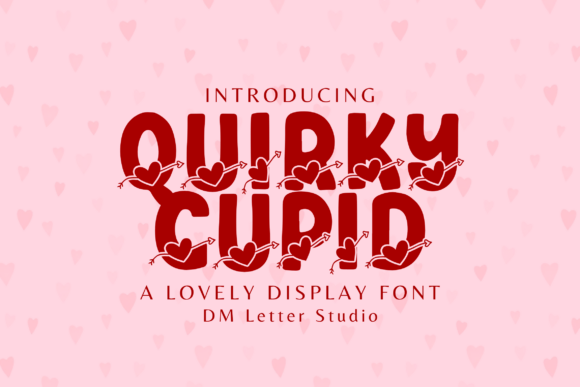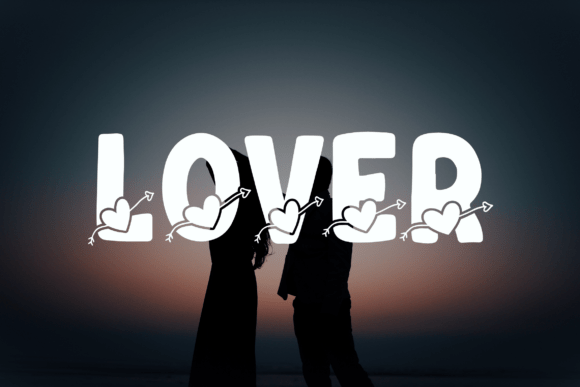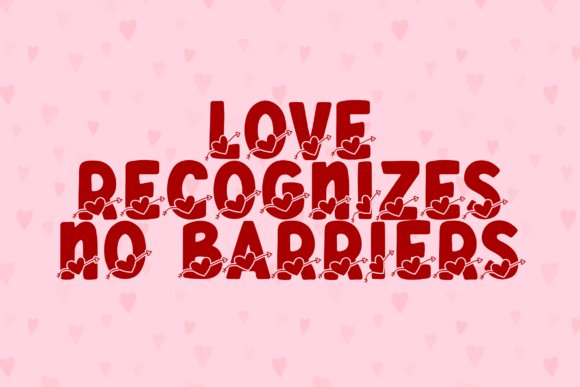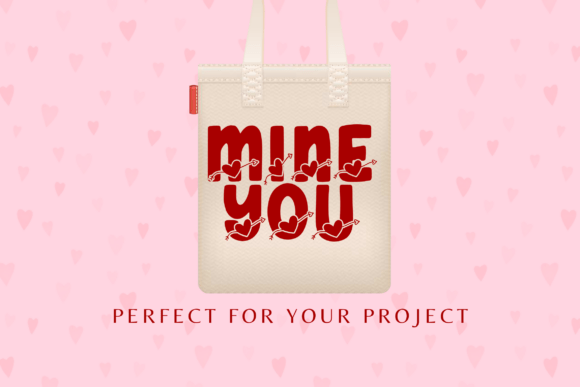
Quirky Cupid Font: A Cute Display Font for Valentine’s Day & DIY Crafts
About the Quirky Cupid Font
Make a bold statement with Quirky Cupid Font, a powerful and memorable font. Quirky Cupid is a cheerful and whimsical font designed to celebrate love in the most charming way. With its heart-infused strokes and quirky, hand-drawn style, this font is perfect for Valentine’s Day cards, wedding invitations, love notes, romantic crafts, and playful branding. It adds a touch of fun and affection to any heartfelt project.
Quirky Cupid’s playful energy makes it ideal for headlines, short text blocks on packaging, and social media graphics. It works exceptionally well for branding projects targeting a young, fun-loving demographic, particularly those related to confectionery, fashion accessories, or children’s products. However, its whimsical nature makes it unsuitable for large amounts of body text or UI elements where readability is paramount.
For optimal visual harmony, pair Quirky Cupid with a clean sans-serif like Lato for a modern contrast, or a classic serif font like Playfair Display for a touch of elegance. A script font like Great Vibes could add a layer of romanticism, while a geometric sans-serif such as Montserrat offers a balanced, grounded counterpoint to the font’s organic charm.
The font’s overall personality is best described as cheerful and friendly, with a touch of whimsical boldness. It’s a versatile choice for projects requiring a lighthearted and charming aesthetic.